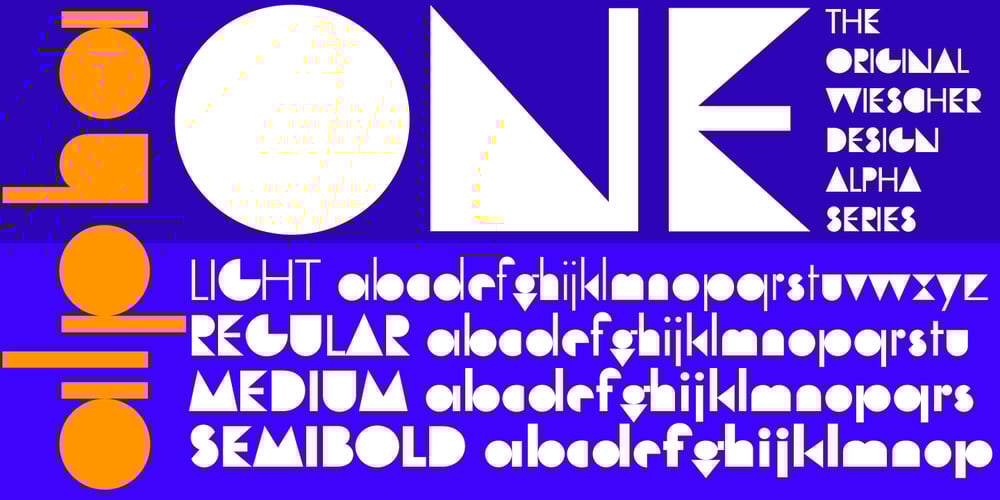
Alpha One Font Family was designed by Gert Wiescher and published by Wiescher Design. Alpha One contains 4 styles and family package options. »AlphaOne« is my newest addition to the experimental Alpha-font-collection. I just had to do this one! It is based on Paul Renners fonts, but has got nothing to do with them, I just took the widths and some basic forms. No – or hardly no – optical corrections were made to the glyphs. I wanted the pure geometric forms to come to life. This was a lot of fun to design, I especially like the »Q« with the negative tail. I did make four weights, but nothing is normal with this font, so weight doesn’t really mean anything. Have fun!